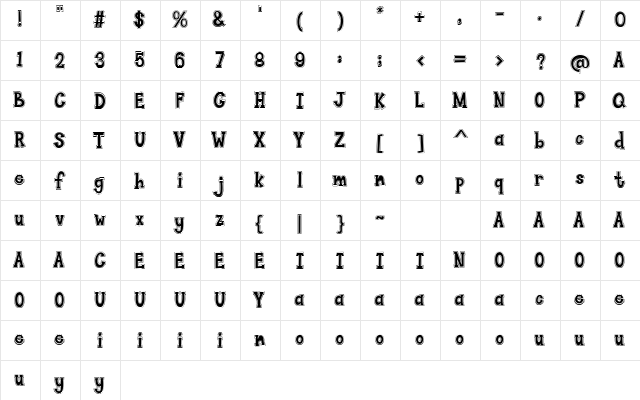
Funny Sports Outline Regular
| Foundry | Fontles |
| Designer | QARA Anass |
Design Context for Funny Sports Outline Typeface
Funny Sports Outline brings high-energy athletic personality to the page — its confident, muscular forms are built for impact.
Built for sports team identities, athletic apparel, event posters, and high-energy promotional material.